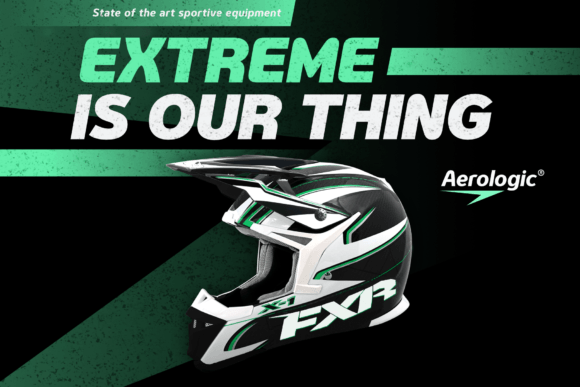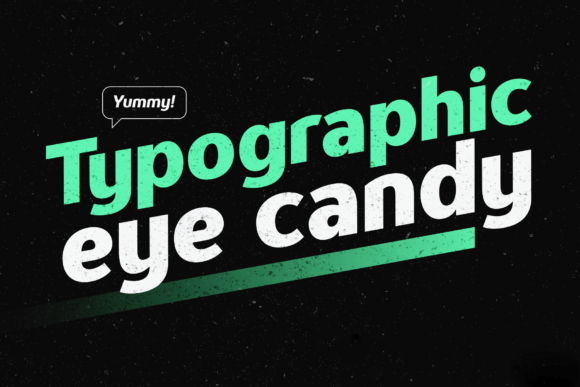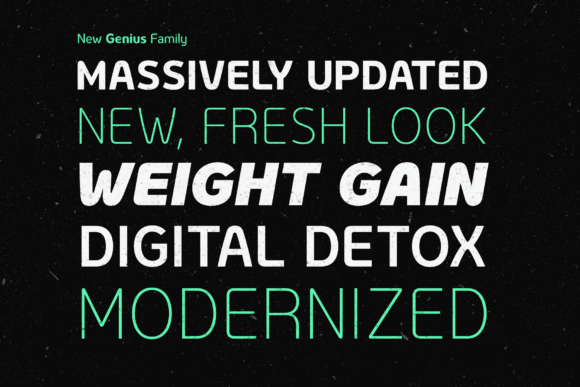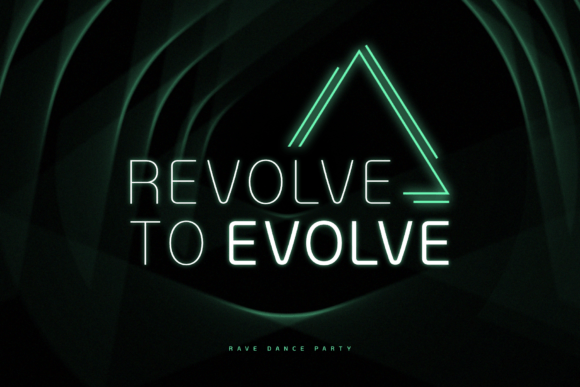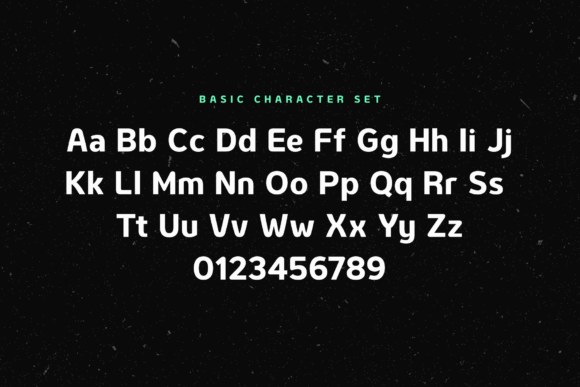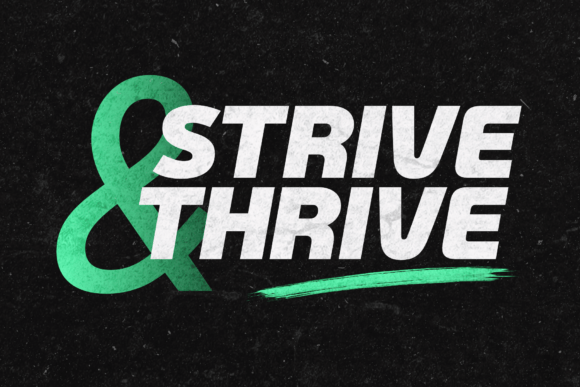
Introducing Genius Font: The Epitome of Modern Typography
In the realm of typography, a font can make or break the visual identity of a brand, product, or creative project. With the myriad of typefaces available, finding the perfect one that exudes modernity, legibility, and versatility can be a daunting task. This is where Genius Font comes into play – a clean, geometric typeface that has been making waves in the design community for its exceptional legibility and contemporary look.
The Genesis of Genius Font
Genius Font is the brainchild of meticulous designers who sought to create a typeface that would cater to the diverse needs of modern design. With a focus on simplicity, elegance, and adaptability, Genius Font was crafted to be a go-to choice for designers, crafters, and brands looking to make a statement. Its geometric construction lends it a crisp, clear appearance that is easy on the eyes, making it perfect for a wide range of applications.
Key Features of Genius Font
- Clean and Geometric Design: The font boasts a clean, geometric design that gives it a modern and sophisticated look. This makes it ideal for projects that demand a fresh and contemporary feel.
- Exceptional Legibility: One of the standout features of Genius Font is its excellent legibility. Whether it’s used in headlines, body text, or captions, it remains clear and readable, even at smaller sizes.
- Versatility: Genius Font is incredibly versatile, making it suitable for a broad spectrum of design projects. From branding and advertising to magazine layouts and web design, it adapts seamlessly to different contexts.
- Modern Aesthetic: The font’s modern aesthetic ensures that any project it is used in will have a current and trendy feel. This is particularly beneficial for brands and designers looking to convey a sense of innovation and forward-thinking.
Applications of Genius Font
The versatility of Genius Font makes it an excellent choice for various design applications. Here are some of the areas where it truly shines:
- Branding: For creating a strong and modern brand identity, Genius Font is an excellent choice. Its clean lines and geometric shapes help in crafting a logo or brand name that is both memorable and impactful.
- Advertising: In advertising, capturing the audience’s attention is crucial. Genius Font, with its modern look and high legibility, ensures that your message is conveyed effectively, whether it’s in print ads, digital banners, or social media campaigns.
- Magazines and Publications: For editorial projects, the readability and aesthetic appeal of Genius Font make it a preferred choice. It enhances the reader’s experience, making long reads more engaging and enjoyable.
- Web Design: In the digital realm, Genius Font performs exceptionally well. Its clean design and legibility ensure a great user experience across various devices and screen sizes, making it perfect for websites, blogs, and mobile applications.
Why Choose Genius Font?
In a world flooded with typefaces, Genius Font stands out for its unique blend of modernity, versatility, and legibility. Here are a few reasons why designers and crafters should consider Genius Font for their projects:
- Time-Saving: With Genius Font, designers can save time that would otherwise be spent on custom typography. Its ready-to-use design is perfect for tight deadlines without compromising on quality.
- Consistency: Using a single, cohesive typeface across a project ensures consistency and professionalism. Genius Font’s versatile design ensures it looks great in any context.
- Creativity Boost: The clean and modern look of Genius Font sparks creativity. It serves as a great foundation for designers to experiment and push the boundaries of their projects.
| Font Name | Genius Font |
| Author | Artegra |
Genius Font is more than just a typeface; it’s a tool for designers and crafters to elevate their projects. Its clean, geometric design, exceptional legibility, and modern aesthetic make it a perfect choice for a wide array of applications. Whether you’re working on a branding project, advertising campaign, magazine layout, or website design, Genius Font is sure to enhance your creative output. Embrace the genius of modern typography with Genius Font and take your designs to the next level.